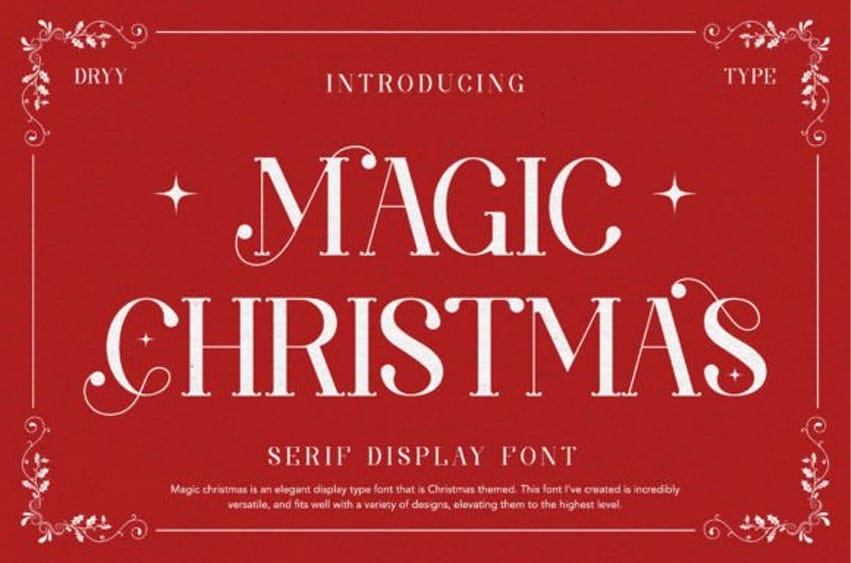
Magic Christmas Font is an elegant and superb serif font. Its classic lines and refined curves create a sense of sophistication and timelessness, making it perfect for luxury branding and editorial design. With a range of weights and styles, Magic Christmas is versatile and sure to add a touch of elegance to any project.